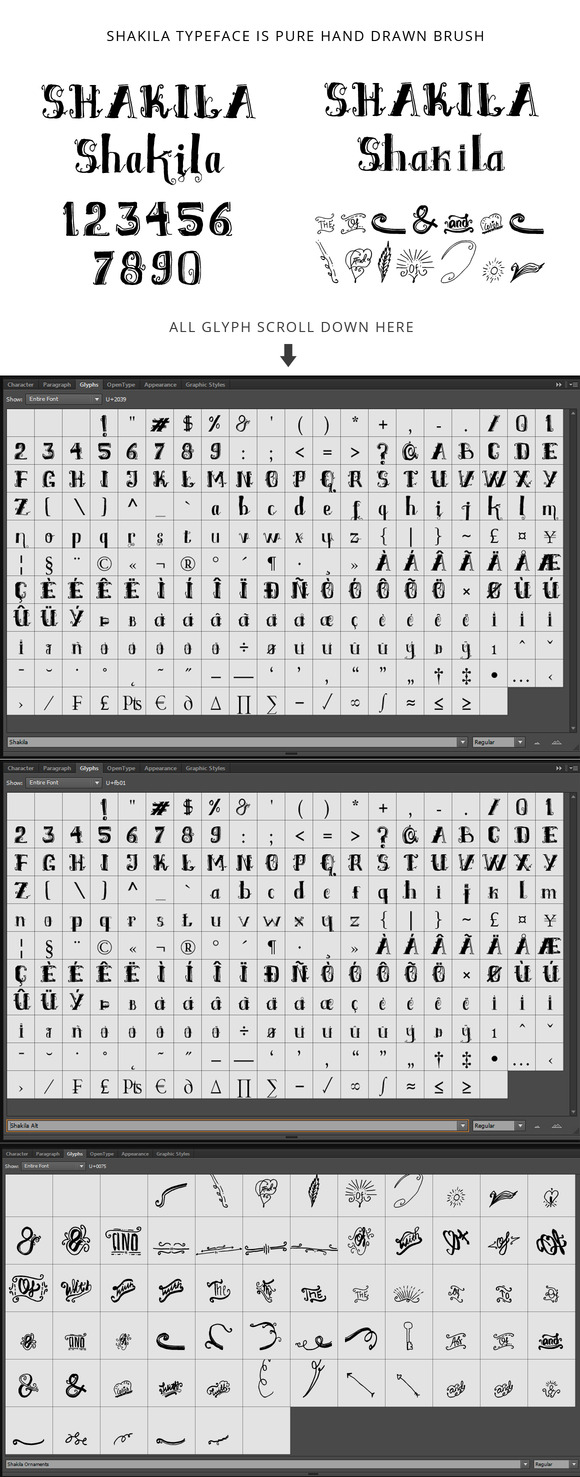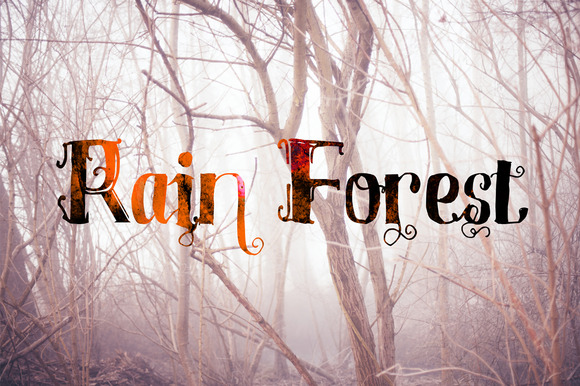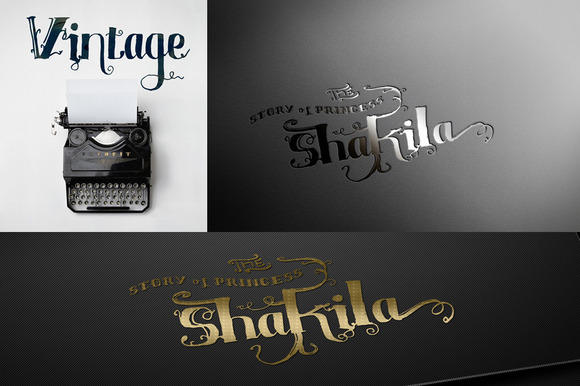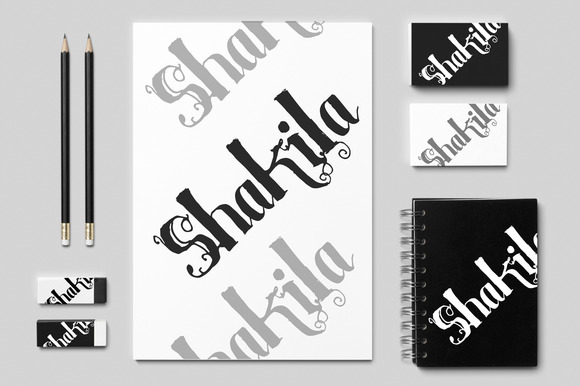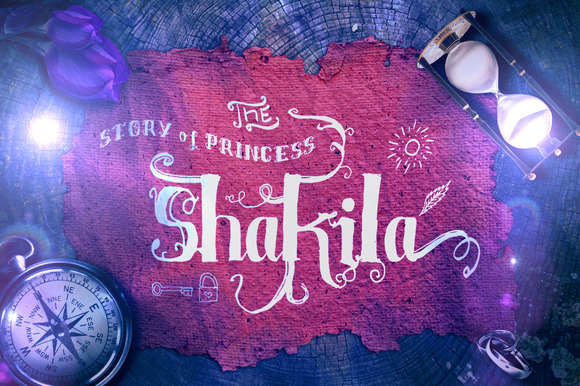
Shakila Typeface Hand Drawn Ornament
Shakila Typeface Hand Drawn And Ornaments
Shakila Typeface Hand Drawn Ornaments This is unique fonts, has made from hand drawn brush, this is story about a girl name is shakila, or call name princess shakila.Shakila Typeface suitable for design, element design, wedding, event, t-shirt, logo, badges, sticker, and awesome work, etc…
• Combination alternative ligature fonts
• Modern and Authentic Typeface
• Unique style fonts